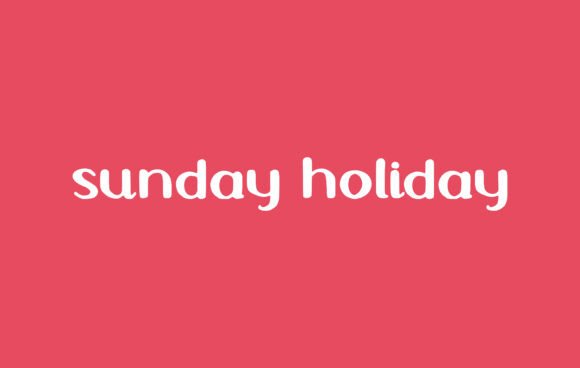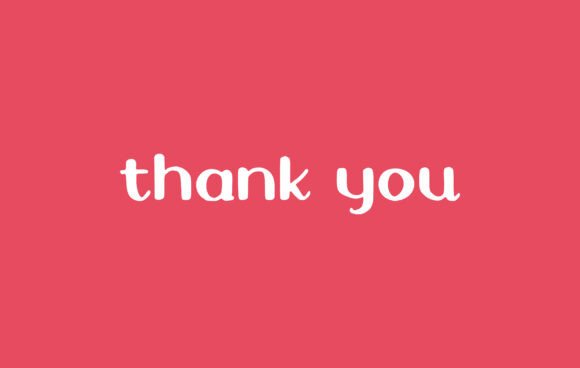
The Hank Font: A Romantic Touch for Your Creative Projects
I’ll never forget the time I was working on a wedding invitation design project, and my client asked for a font that was both elegant and playful. I scoured the internet, tried out dozens of fonts, but none seemed to fit the bill. That was until I stumbled upon the Hank font. With its authentic handwritten style and romantic touch, it was love at first sight! 💕 In this article, I’ll share my experience with the Hank font, its features, and how to make the most of it in your creative projects.
A Personal Review: What I Love About Hank Font
Here’s what makes the Hank font a true favorite:
- ✨ Legibility: The Hank font is incredibly easy to read, making it perfect for both title and body text.
- ✅ Versatility: Its elegant yet playful style makes it suitable for a wide range of designs, from magazine headlines to social media posts, branding, wedding invitations, and more.
- 💫 Unique Character: The font has a distinct, handmade feel that adds a touch of personality to any design.
While the Hank font is amazing, there are a few things to keep in mind:
- 🤔 Limited Multilingual Support: The font may not support all languages or special characters, so be sure to check the character set before using it for a multilingual project.
- ⚠️ Overuse: While the font is beautiful, using it excessively or in large blocks of text may make your design look cluttered.
The Story Behind Hank Font
The Hank font was designed by a talented type designer who wanted to create a font that captured the essence of handwritten elegance. Inspired by classic script fonts, the designer aimed to create a modern, yet timeless font that would be perfect for a wide range of creative projects. With its romantic touch and authentic handwritten style, the Hank font has become a favorite among designers and crafters alike.
| Q: Is the Hank font suitable for body text? | A: Yes, the Hank font is legible and can be used for body text, but it’s recommended to use a font size of at least 12 points for optimal readability. |
| Q: Is the Hank font available in multiple languages? | A: The Hank font may not support all languages or special characters, so be sure to check the character set before using it for a multilingual project. |